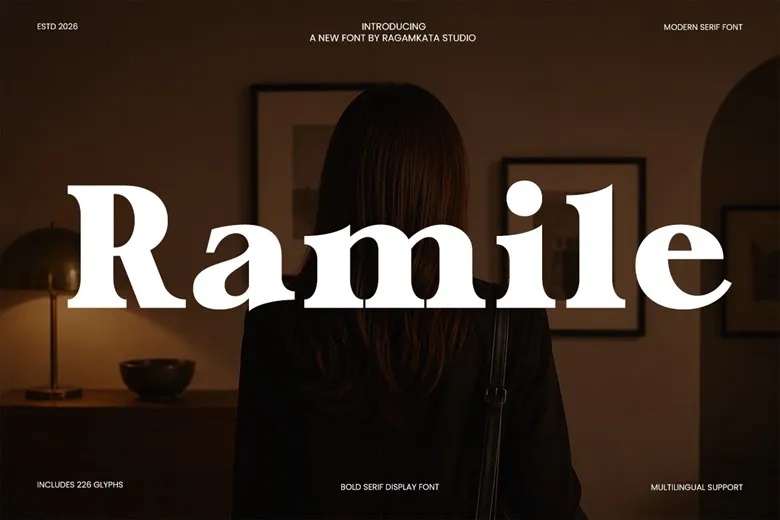
Ramile Font
Ramile is a bold, modern serif display font designed to bring elegance, confidence, and timeless style. It works well for luxury branding, fashion campaigns, magazine headlines, cosmetic packaging, product labels, logos, hotel branding, invitations, and stylish social media posts.
This typeface is versatile for both commercial and creative projects that require a sense of prestige and clarity. It adds authority, elegance, and a modern touch to any project.
Ramile Serif Font